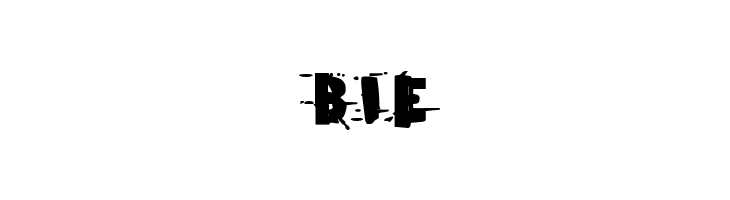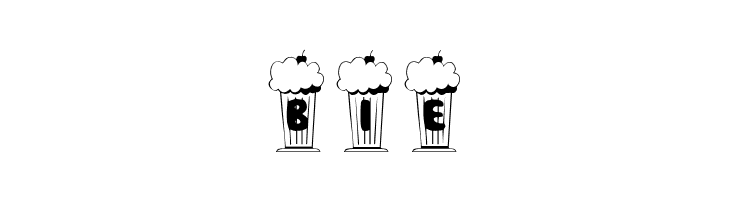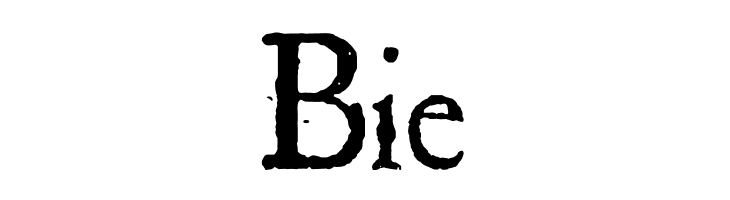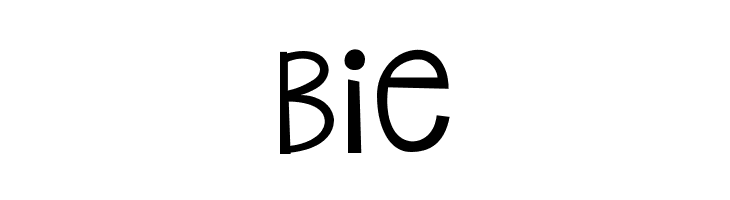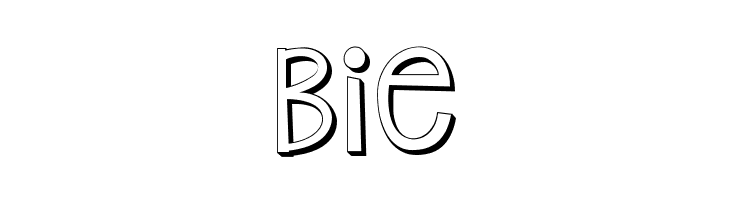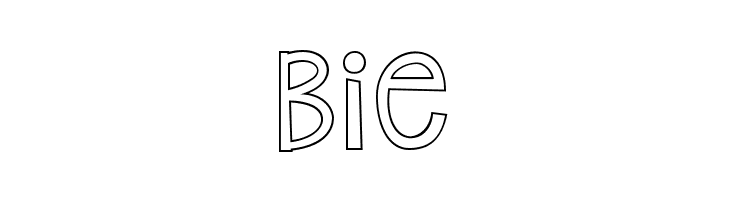
A bold, italicized font with a distressed, grunge aesthetic.
A bold, distressed font with a rugged, grunge-like aesthetic.
A playful font with letters emerging from cloud-like shapes, perfect for fun and creative projects.
A bold, distressed font with a grunge texture and rugged appearance.
A bold, textured font with a distressed, grunge style.
A bold, textured font with distressed uppercase letters and classic serif numbers.
A vintage, classic font with a hand-crafted, historical appearance.
A playful, hand-drawn font with a whimsical and casual style.
A playful, outlined font with a hand-drawn, whimsical style.
A playful, outline-style font with bold, rounded characters.